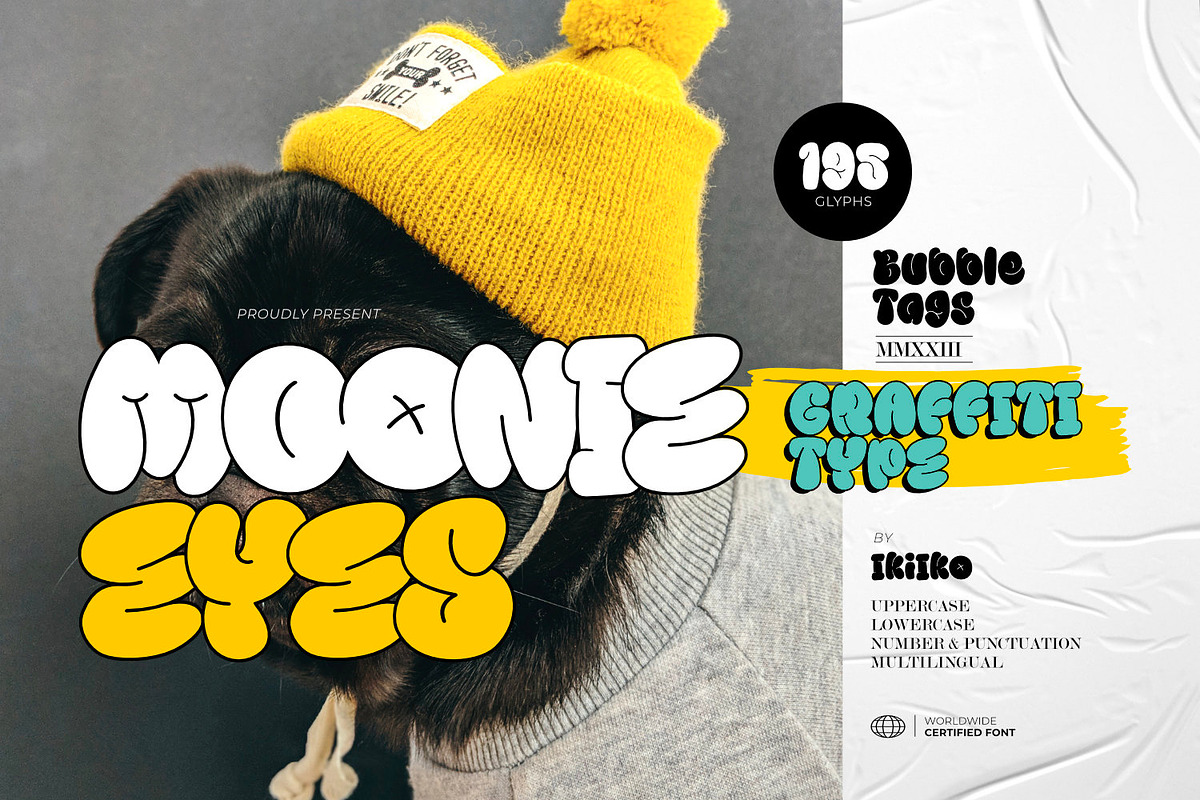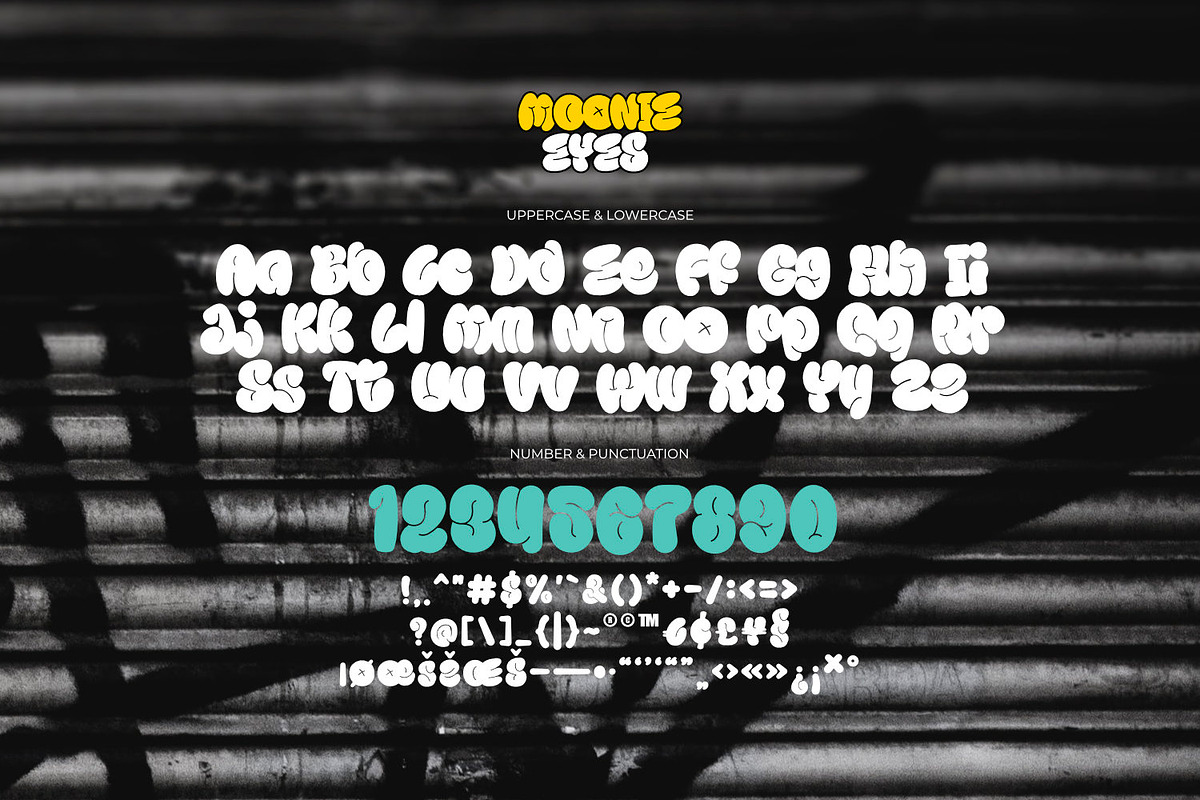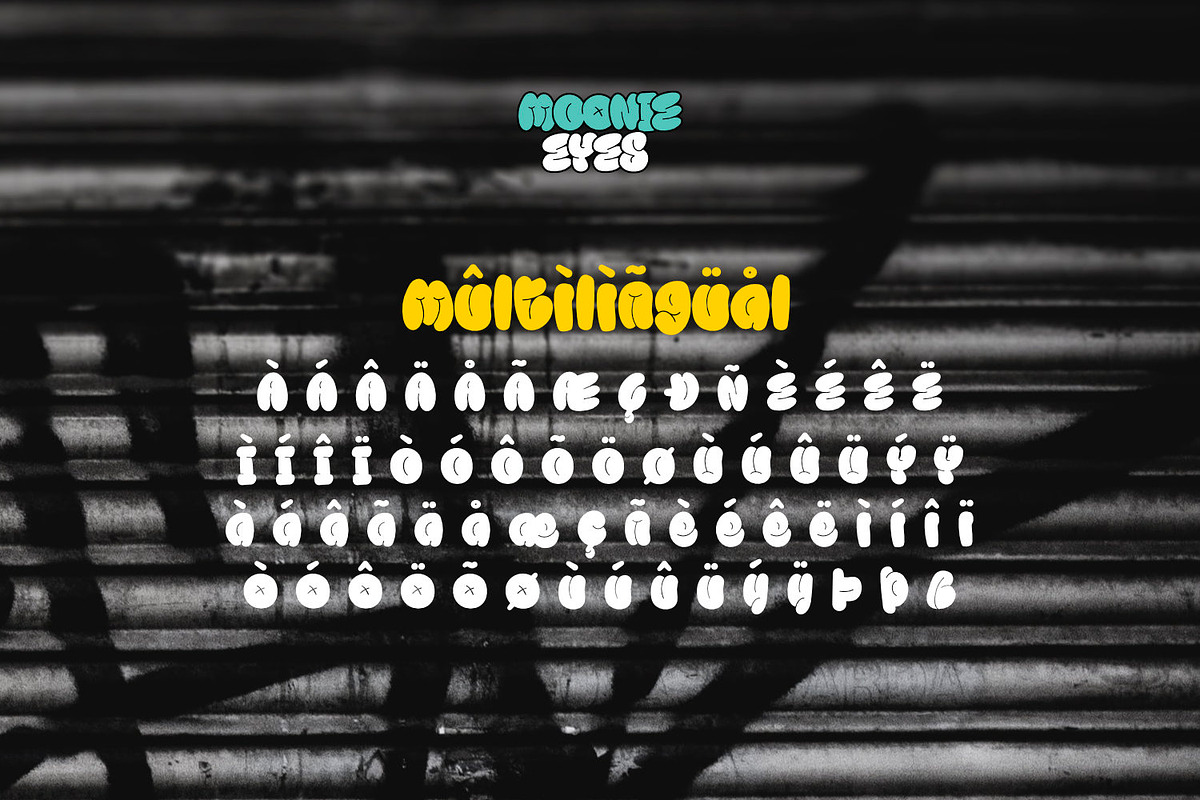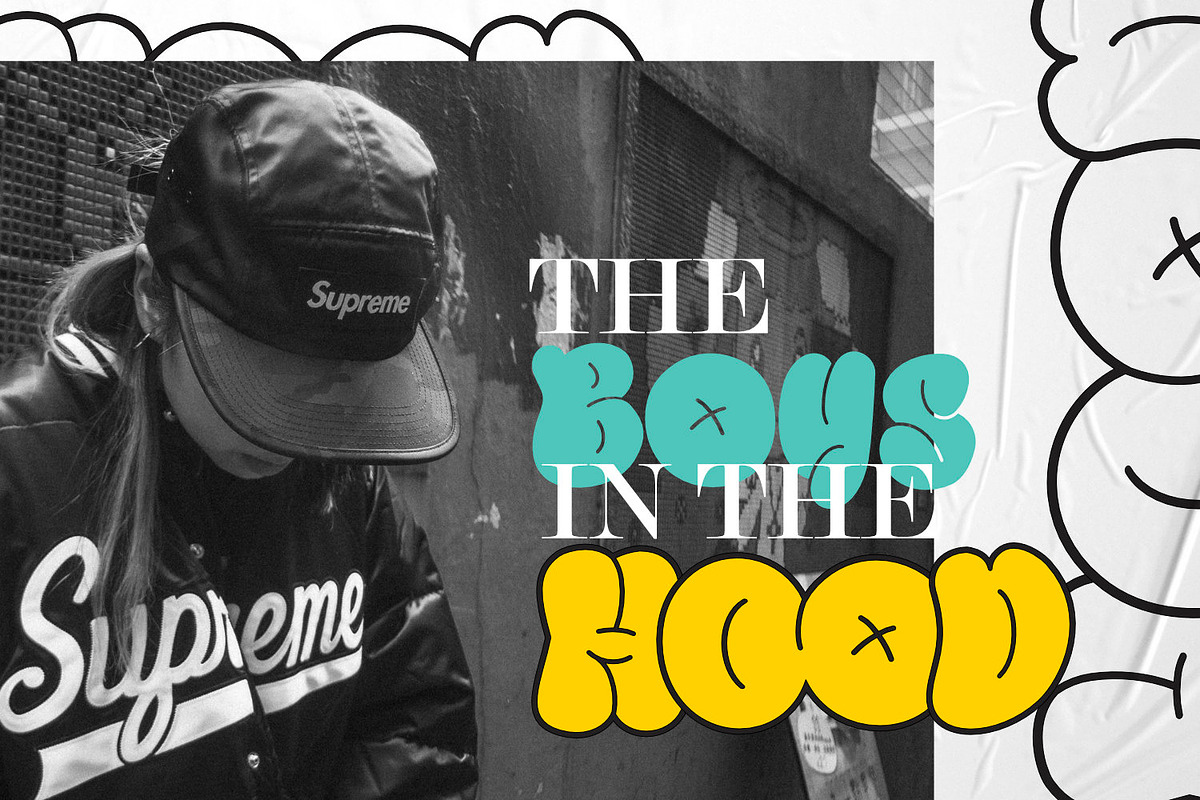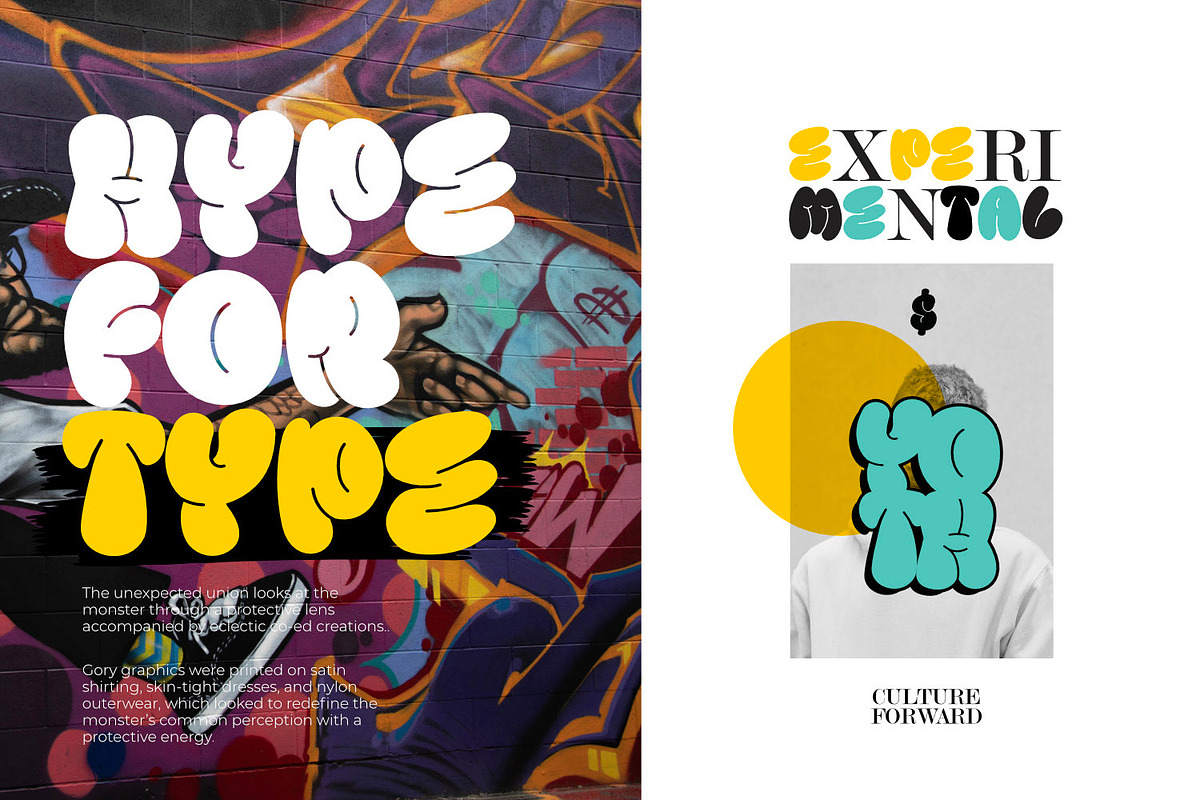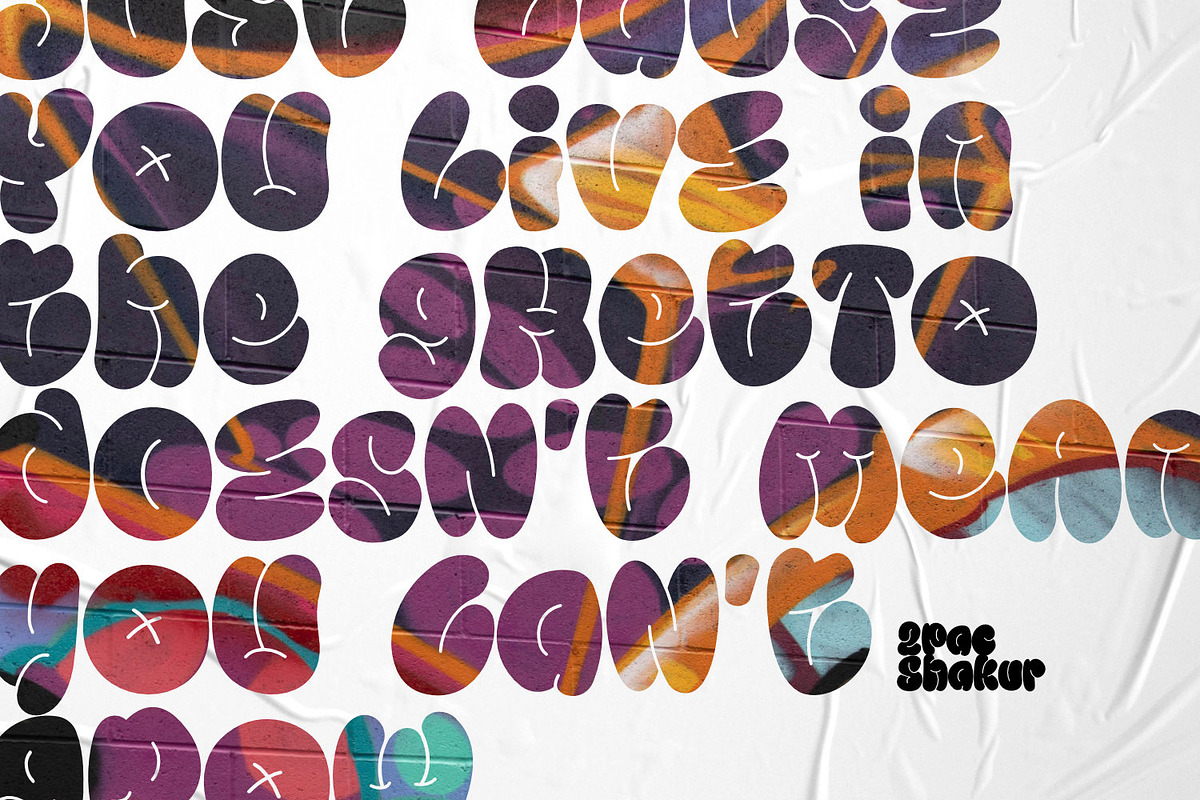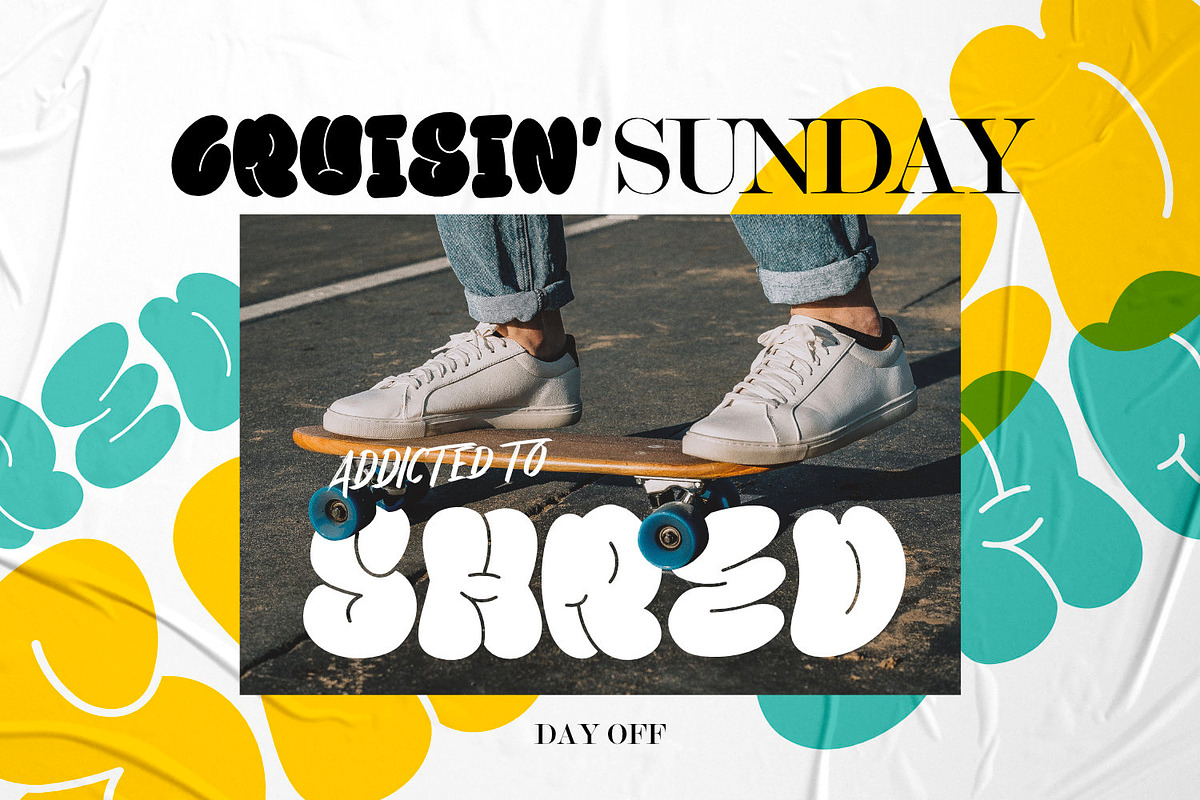
Moonie Eyes - Graffiti Type
Proudly present Moonie Eyes - Graffiti Type, created by ikiiko.
Moonie Eyes is a handwritten font with spontaneous curves inspired by street art markings. The letters bubble and pile up on each other to become strong characters in this graffiti letters. You can play with separate characters or overlapping each other.
This type is very suitable for making a streetwear brand, poster or magazine layout, fashion design, quotes, or simply as a stylish text overlay to any background image.